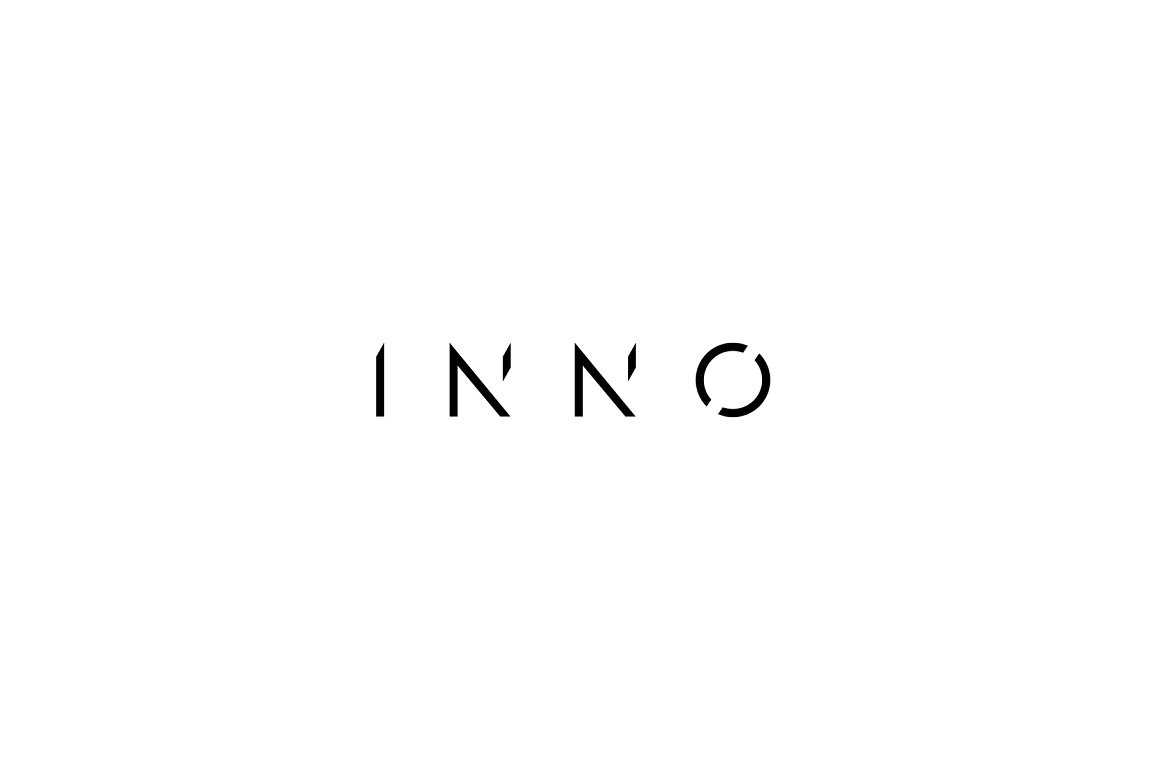
INNO Font, modern scifi typeface
Inno font, is a modern take on the futuristic scifi theme, this typeface is clean, sharp, and have plenty of alternative, you can easily access them through uppercase lowercase. This font is great for headlines, sub titles and many attention grabber projects.